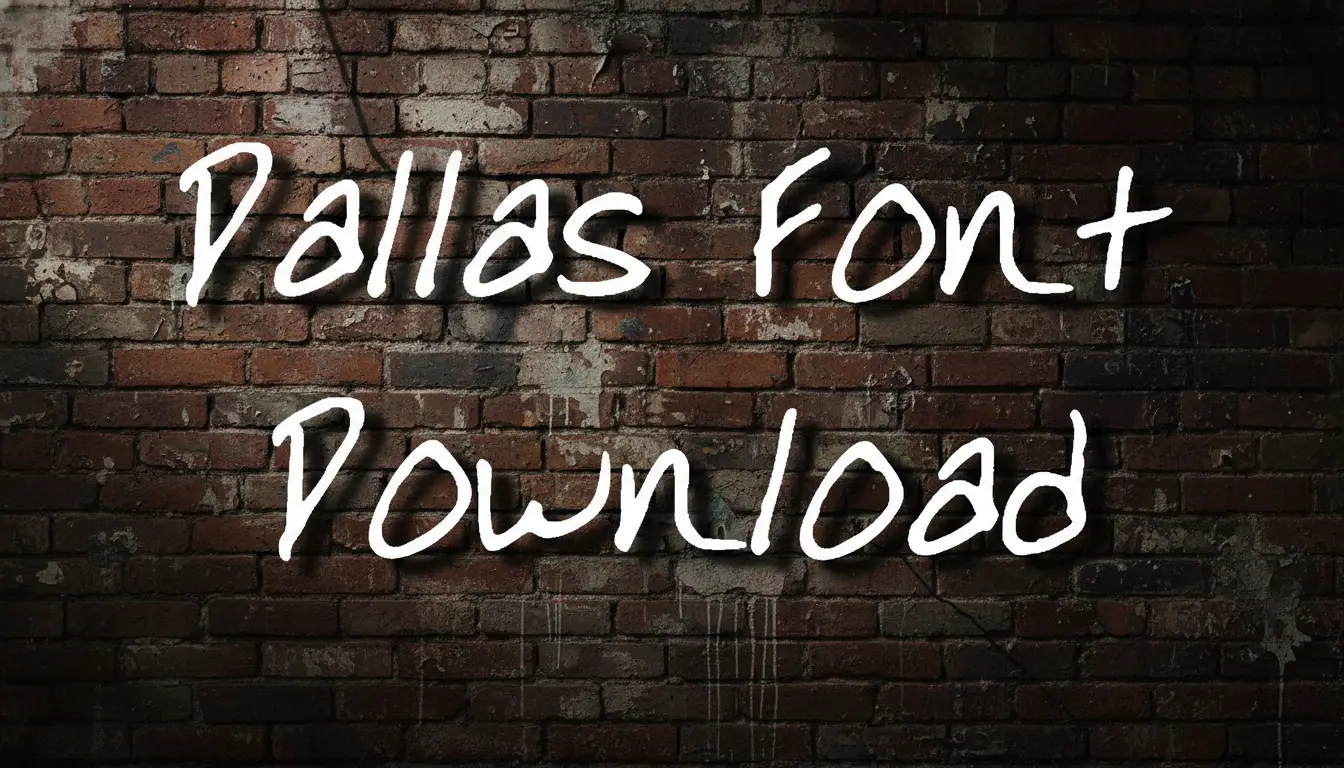
Dallas Font
Dallas is a script font. The letters have the smooth movement of real pen lettering, which is why even a single name looks special in it. You can download it for free and test it with your own words in the preview above.
What You Can Type With Dallas
You get every letter from A to Z in both cases and all the numbers from 0 to 9, which means Dallas can handle full sentences, dates and prices. Everyday marks like &, !, ? and @ are there too. Thanks to its accented letters, it also works for French and German, not just English.
Where Dallas Works Best
Dallas is a natural fit for wedding invitations, logos and signature-style headings. Script fonts read best in short bursts, so keep it to names, titles and one-line quotes. Skip all caps: script capitals are drawn to start a word, not to fill one.
Does Dallas support accented letters?
Yes. Dallas includes the accented letters needed for French and German, so it works for more than just English.